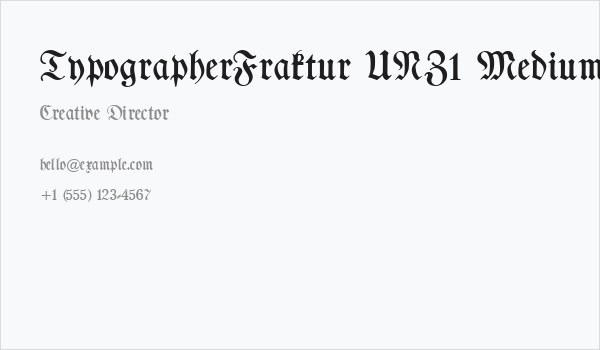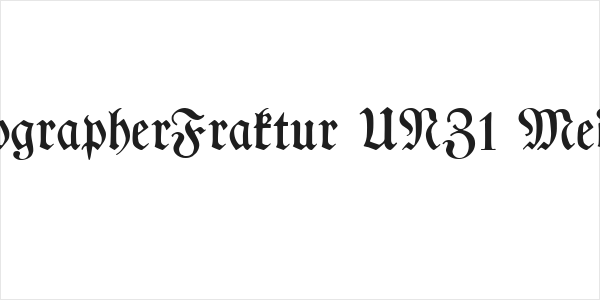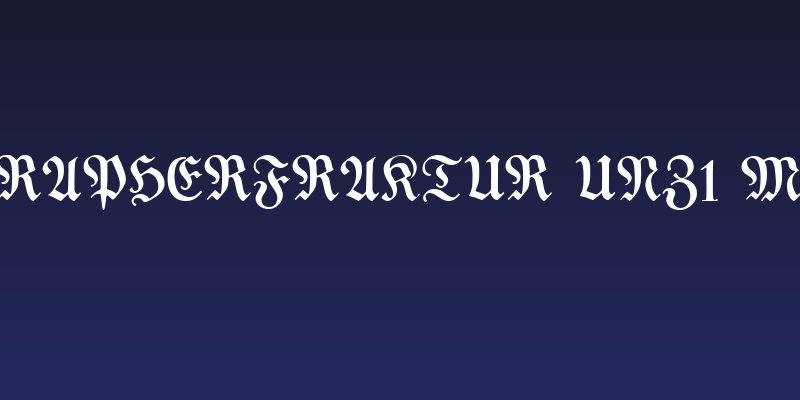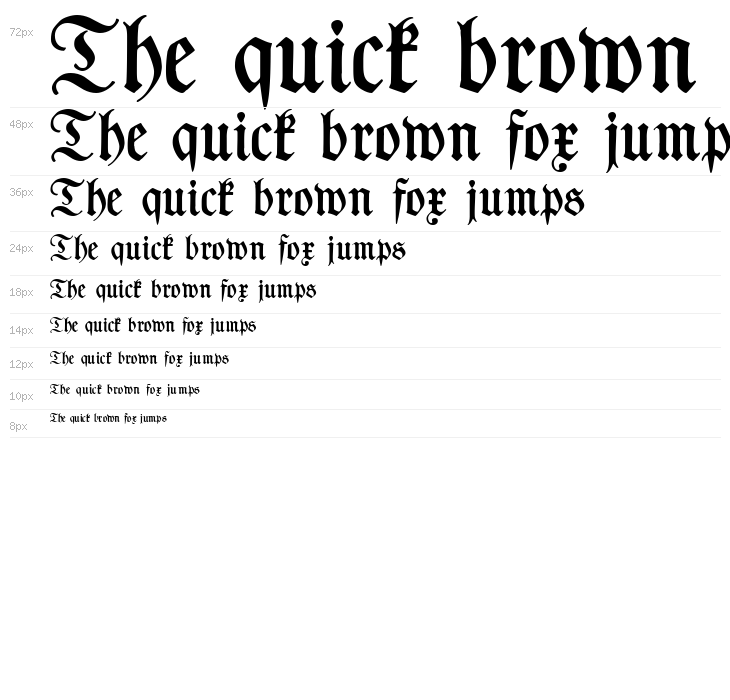
TypographerFraktur UNZ1 Medium Font
TypographerFraktur UNZ1 Medium Description
This font is a classic example of the Blackletter style, characterized by its ornate and intricate design. The uppercase letters exhibit a high level of detail with sharp, angular lines and decorative flourishes, giving them a distinctly medieval appearance. The lowercase letters maintain a similar style, with bold strokes and a slightly condensed form, enhancing readability while preserving the traditional aesthetic. The numerals are consistent with the overall design, featuring a mix of curves and angles that complement the letterforms. Special characters are included, maintaining the decorative and historical feel of the font. This typeface is ideal for projects that require a touch of elegance and historical flair, such as invitations, certificates, or branding for luxury products.
| Proposed Projects | Ideal for invitations, certificates, branding for luxury products, or historical-themed designs. |